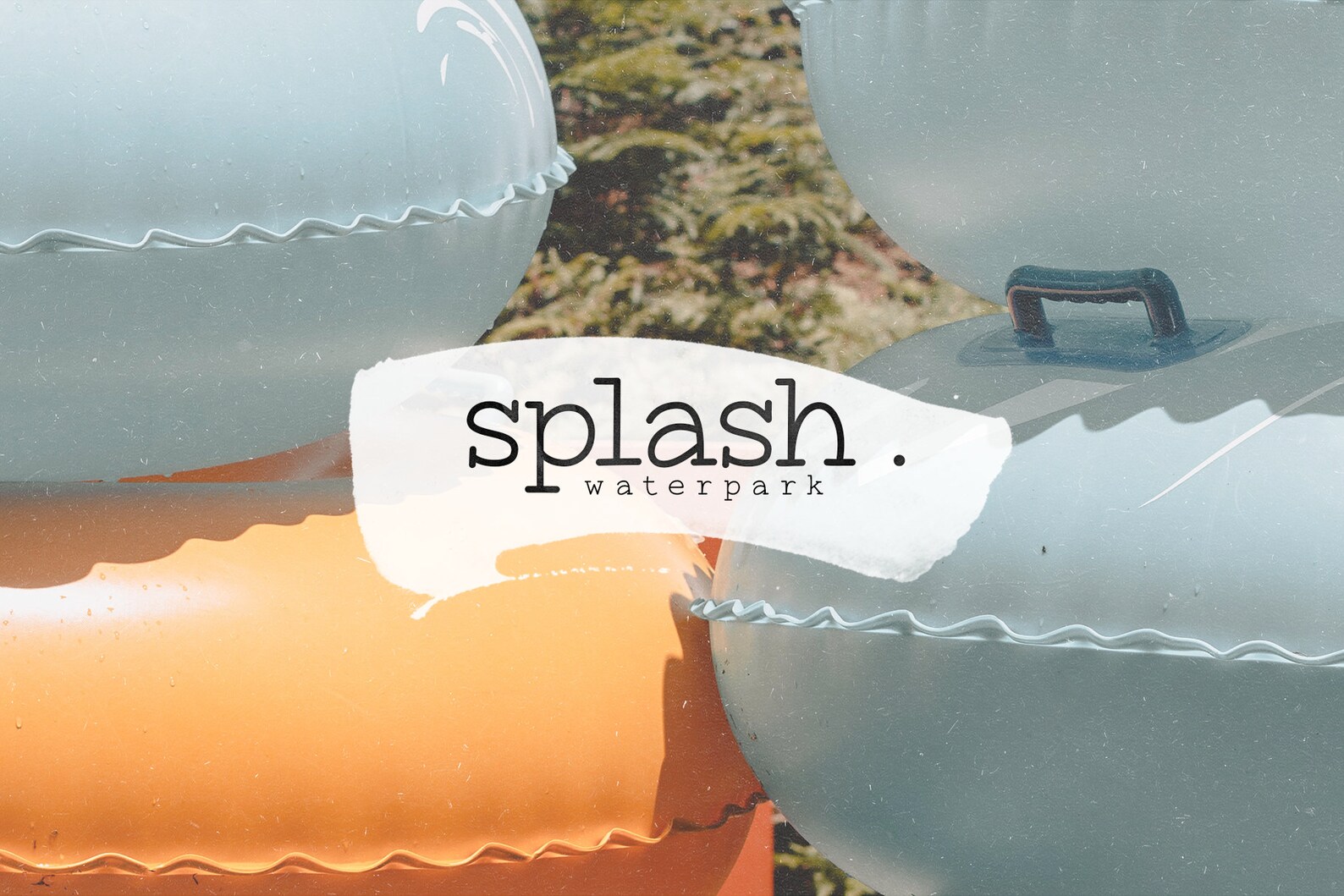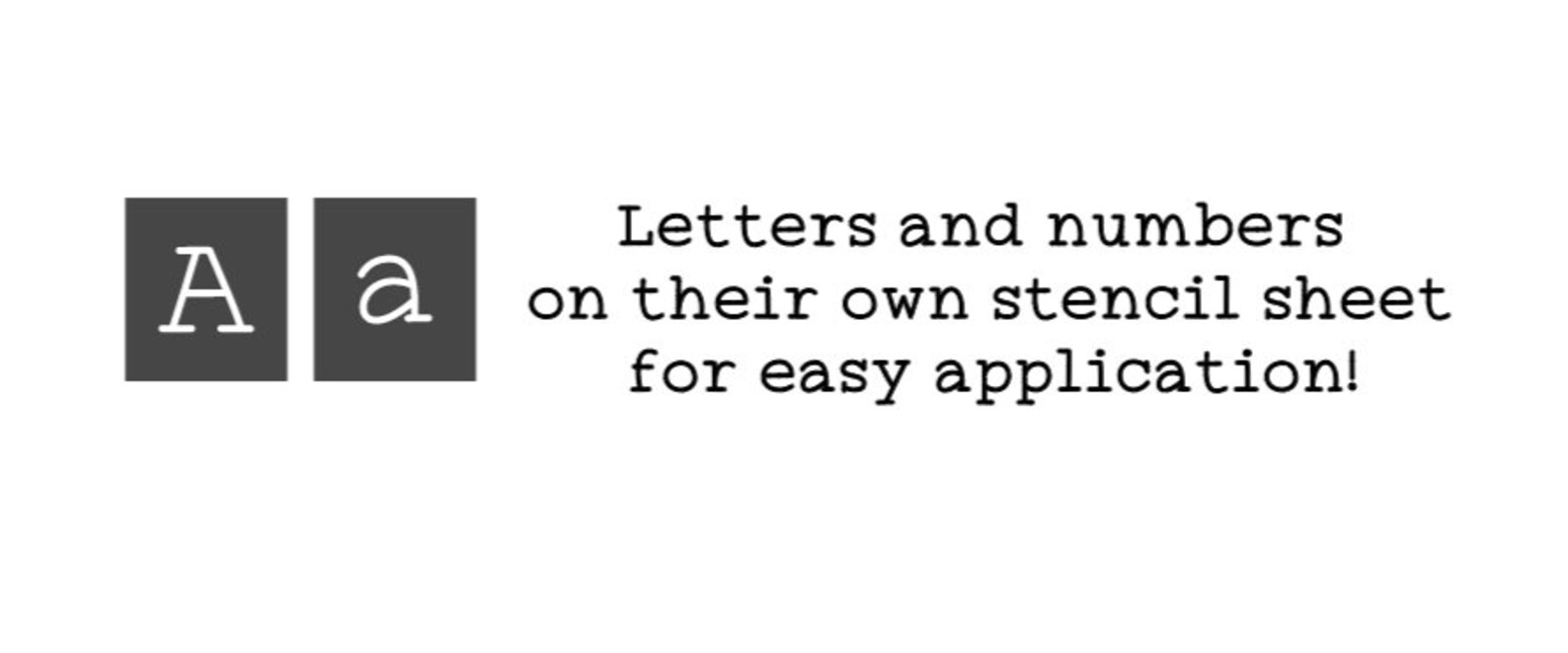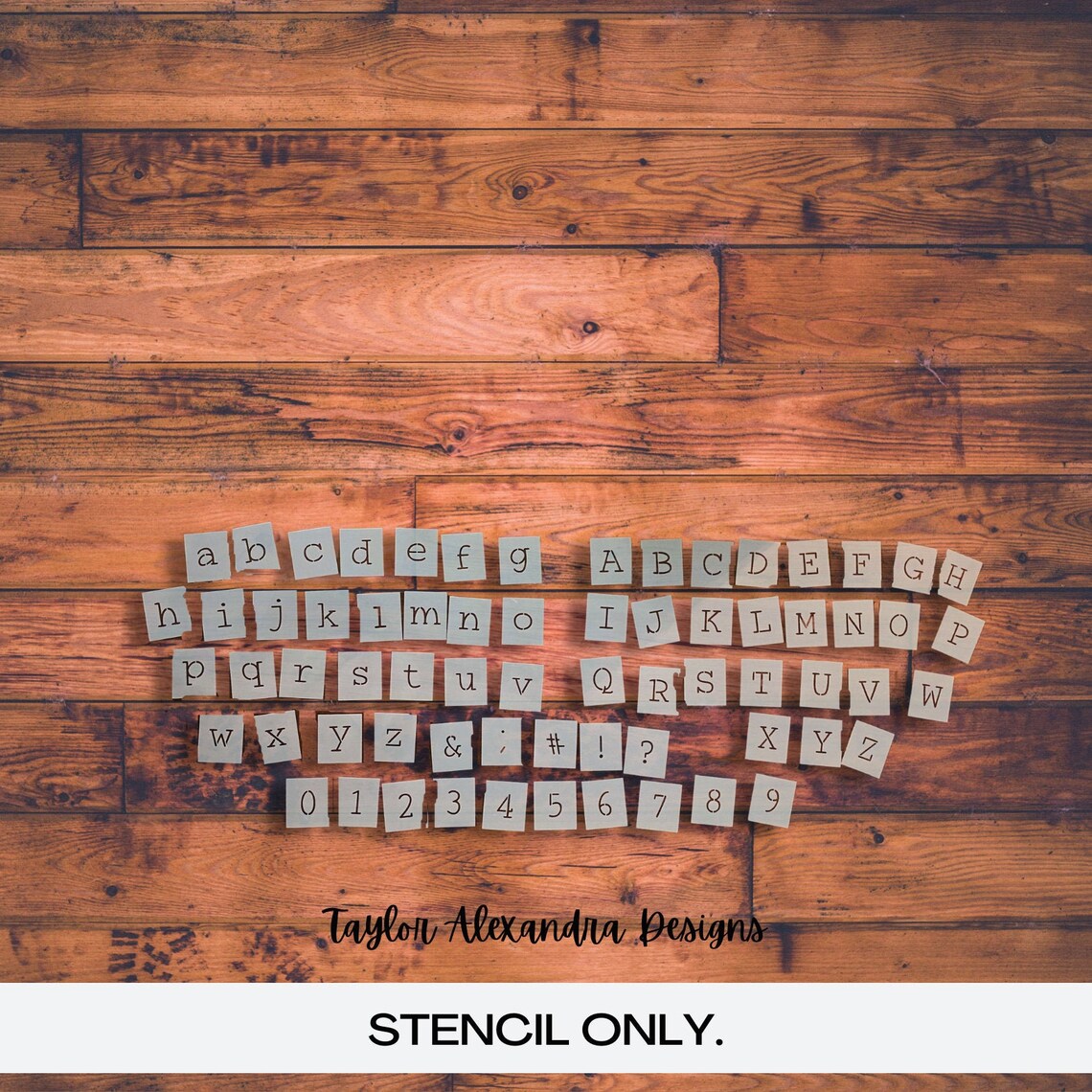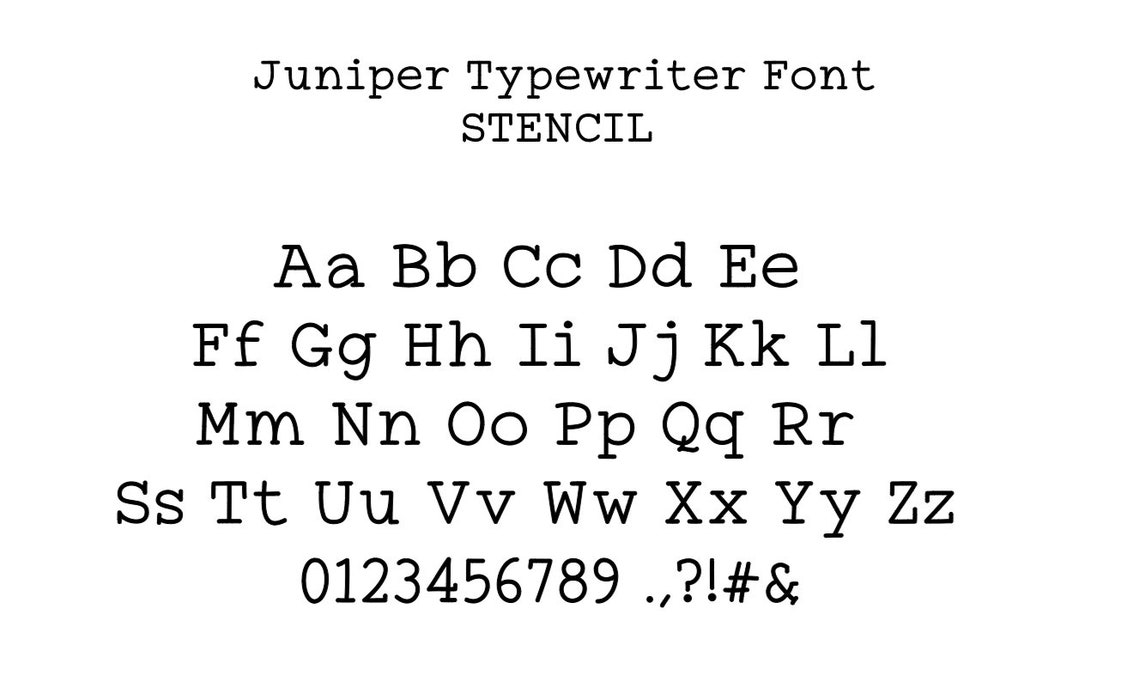
Juniper Typewriter Font . It has a thin, serif style making it perfect for branding and digital designs. Explore juniper designed by joy redick at adobe fonts. The font is only for commercial purposes only and you must be purchased. Download juniper font · free for personal use · hello, this font is only for personal use! This font is perfect for quotes, shirt designs, websites, branding, children's designs, svg designs, blogs, logos,. With this font, design beautiful greetings. Use this font for logos, social media, websites, blogs,. The font juniperstd can't be downloaded from fontpark.com. Juniper is a modern typewriter style font! Juniper is a handwritten font with a clean, typewriter look! A decorative typeface with 1 style, available from adobe fonts for sync and web. Juniper typewriter, although a font typewriter, is minimalist and serif. Examples of fonts in use in the set “juniper jot.
Juniper is a handwritten font with a clean, typewriter look! Download juniper font · free for personal use · hello, this font is only for personal use! Examples of fonts in use in the set “juniper jot. Explore juniper designed by joy redick at adobe fonts. The font juniperstd can't be downloaded from fontpark.com. It has a thin, serif style making it perfect for branding and digital designs. A decorative typeface with 1 style, available from adobe fonts for sync and web. Juniper is a modern typewriter style font! The font is only for commercial purposes only and you must be purchased. With this font, design beautiful greetings.
Juniper Typewriter Font Juniper is a modern typewriter style font! A decorative typeface with 1 style, available from adobe fonts for sync and web. Juniper is a modern typewriter style font! Download juniper font · free for personal use · hello, this font is only for personal use! Explore juniper designed by joy redick at adobe fonts. With this font, design beautiful greetings. Juniper is a handwritten font with a clean, typewriter look! Juniper typewriter, although a font typewriter, is minimalist and serif. Use this font for logos, social media, websites, blogs,. The font juniperstd can't be downloaded from fontpark.com. Examples of fonts in use in the set “juniper jot. It has a thin, serif style making it perfect for branding and digital designs. This font is perfect for quotes, shirt designs, websites, branding, children's designs, svg designs, blogs, logos,. The font is only for commercial purposes only and you must be purchased.
Typewriter Font Logo Juniper Typewriter Font Examples of fonts in use in the set “juniper jot. Explore juniper designed by joy redick at adobe fonts. Juniper is a modern typewriter style font! Use this font for logos, social media, websites, blogs,. With this font, design beautiful greetings. It has a thin, serif style making it perfect for branding and digital designs. Juniper is a handwritten font. Juniper Typewriter Font.
Juniper Handwritten Typewriter Font By KA Designs TheHungryJPEG Juniper Typewriter Font This font is perfect for quotes, shirt designs, websites, branding, children's designs, svg designs, blogs, logos,. Juniper typewriter, although a font typewriter, is minimalist and serif. With this font, design beautiful greetings. Explore juniper designed by joy redick at adobe fonts. A decorative typeface with 1 style, available from adobe fonts for sync and web. Download juniper font · free. Juniper Typewriter Font.
What Is Typewriter Font Nostalgic Insights Juniper Typewriter Font It has a thin, serif style making it perfect for branding and digital designs. Examples of fonts in use in the set “juniper jot. With this font, design beautiful greetings. Juniper is a handwritten font with a clean, typewriter look! Download juniper font · free for personal use · hello, this font is only for personal use! The font is. Juniper Typewriter Font.
Typewriter Font MasterBundles Juniper Typewriter Font Examples of fonts in use in the set “juniper jot. Juniper is a modern typewriter style font! Explore juniper designed by joy redick at adobe fonts. Use this font for logos, social media, websites, blogs,. This font is perfect for quotes, shirt designs, websites, branding, children's designs, svg designs, blogs, logos,. It has a thin, serif style making it perfect. Juniper Typewriter Font.
Juniper Font Typewriter Font Cricut Fonts Fonts for SVGS Etsy Juniper Typewriter Font Juniper typewriter, although a font typewriter, is minimalist and serif. Juniper is a handwritten font with a clean, typewriter look! The font juniperstd can't be downloaded from fontpark.com. Examples of fonts in use in the set “juniper jot. With this font, design beautiful greetings. A decorative typeface with 1 style, available from adobe fonts for sync and web. The font. Juniper Typewriter Font.
Distressed Typewriter Font Svg, Antique Font, Vintage Font,alphabet Juniper Typewriter Font A decorative typeface with 1 style, available from adobe fonts for sync and web. Examples of fonts in use in the set “juniper jot. This font is perfect for quotes, shirt designs, websites, branding, children's designs, svg designs, blogs, logos,. The font juniperstd can't be downloaded from fontpark.com. Use this font for logos, social media, websites, blogs,. Juniper typewriter, although. Juniper Typewriter Font.
1 INCH Juniper Typewriter Font Alphabet Numbers and Etsy Juniper Typewriter Font Explore juniper designed by joy redick at adobe fonts. This font is perfect for quotes, shirt designs, websites, branding, children's designs, svg designs, blogs, logos,. Juniper typewriter, although a font typewriter, is minimalist and serif. Use this font for logos, social media, websites, blogs,. It has a thin, serif style making it perfect for branding and digital designs. A decorative. Juniper Typewriter Font.
Rough Typewriter Font FreeDaFonts Juniper Typewriter Font Examples of fonts in use in the set “juniper jot. This font is perfect for quotes, shirt designs, websites, branding, children's designs, svg designs, blogs, logos,. The font juniperstd can't be downloaded from fontpark.com. With this font, design beautiful greetings. It has a thin, serif style making it perfect for branding and digital designs. Download juniper font · free for. Juniper Typewriter Font.
Juniper Handwritten Typewriter Font By KA Designs TheHungryJPEG Juniper Typewriter Font A decorative typeface with 1 style, available from adobe fonts for sync and web. With this font, design beautiful greetings. The font juniperstd can't be downloaded from fontpark.com. Juniper typewriter, although a font typewriter, is minimalist and serif. Use this font for logos, social media, websites, blogs,. Download juniper font · free for personal use · hello, this font is. Juniper Typewriter Font.